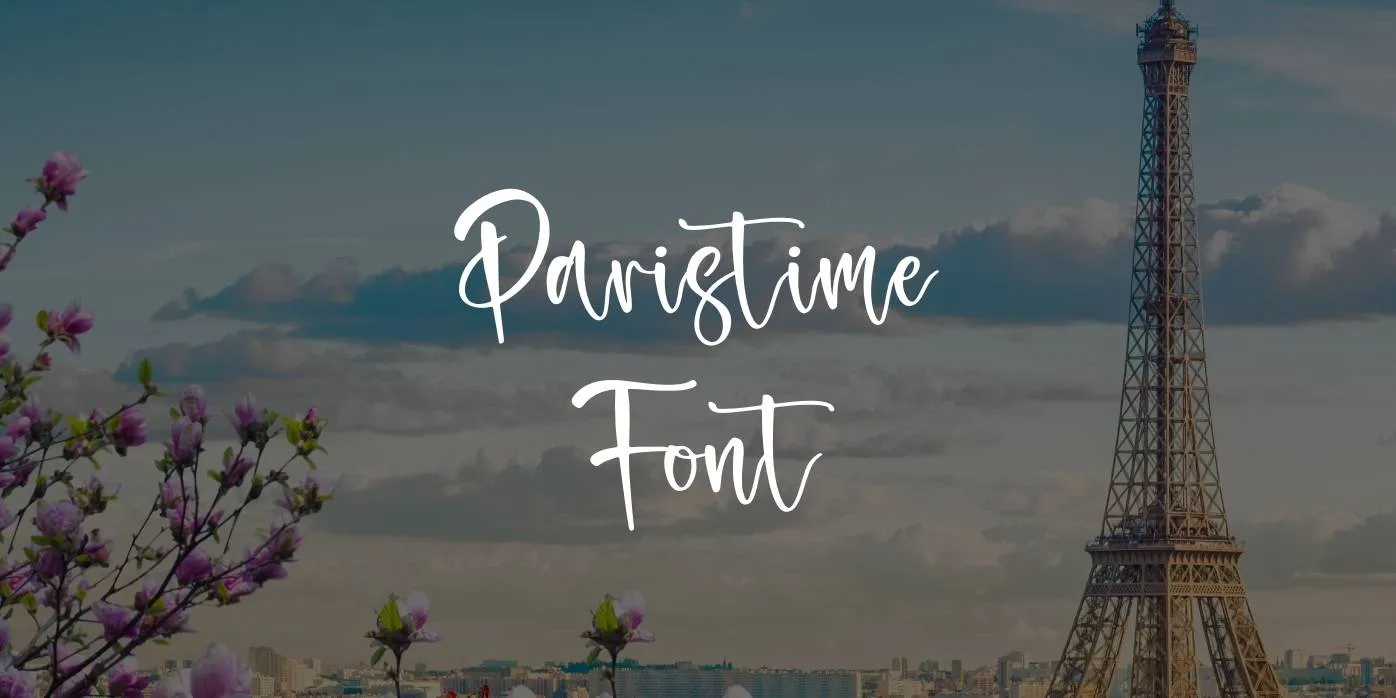
Paristime Font
In this post, we introduce a stylish typeface that is known by the name Paristime Font. This family was designed by Perspectype. This typeface belongs to the calligraphy font family. It is well specified for the CSS.
The Paristime Font family contains three weights; they are Regular, Medium, and Bold. All of these weights have their own unique styles that make them stand out. This stunning font is an elegant typeface with a touch of class. This family is perfect for any formal or professional setting.  Its copy and paste function is perfect for all text designs.
When it comes to the design of this font, each weight has its own set of distinct features. The Regular weight is characterized by its tall x-height and rounded letters. The Medium weight is a bit more compact than the Regular, and it has a slightly higher x-height. Finally, the Bold weight is the most compact of the three weights and has the tallest x-height.